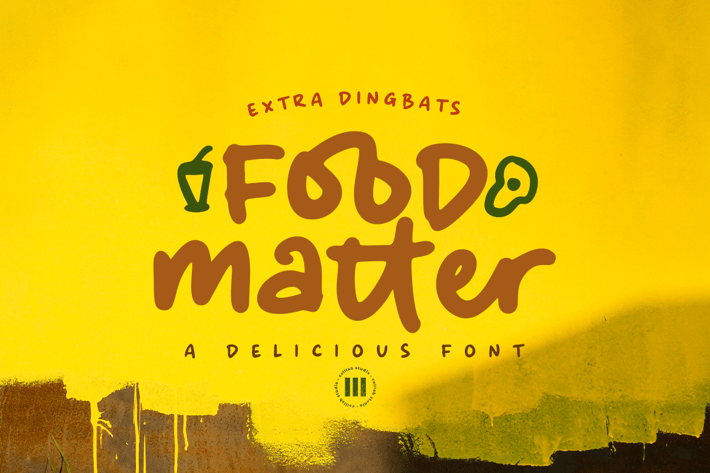
Food Matter - A Delicious Handwritten Font
Food Matter is A Delicious Handwritten Font that is suitable for design projects; playful theme, casual theme, logo, branding, poster, quotes, display, stunning stationary, eye-catching social media posts, and cute greeting cards, and any other designs.
Huge Ligatures
Some Alternates
A Lot of Doodle
Full uppercase and lowercase glyphs
Numbers, punctuations, and symbols